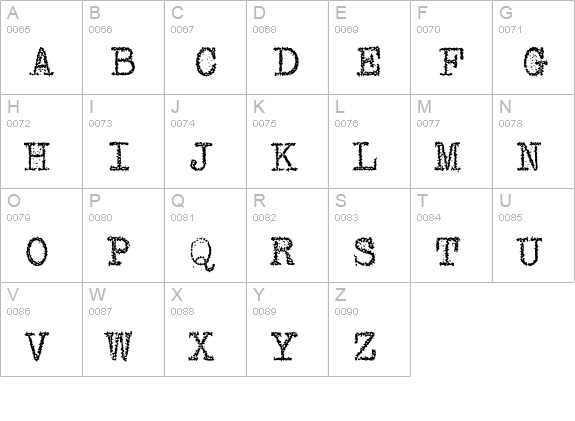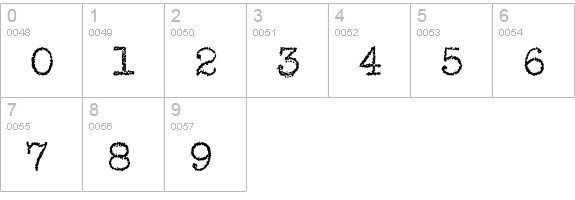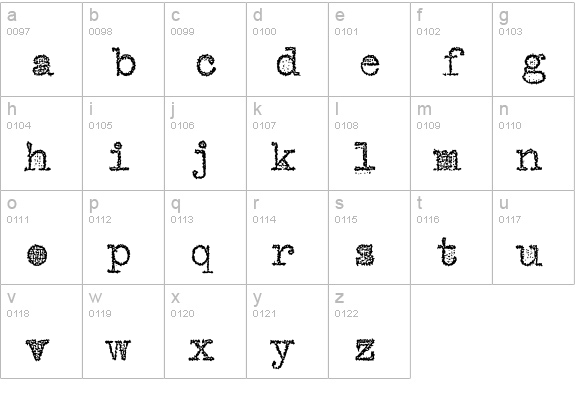
VTypewriter-RoyalDeLuxe Font Details
Introducing VTypewriter-RoyalDeLuxe, a mesmerizing font that takes you on a journey through time with its vintage charm and classic allure. This font captures the essence of typewriter lettering, exuding an air of nostalgia and authenticity. With its meticulously crafted design, VTypewriter-RoyalDeLuxe brings back the elegance and sophistication of old-fashioned typewriters, while adding a contemporary twist. Its distinctive characters are beautifully imperfect, showcasing the subtle nuances and imperfections of typewritten text. The versatility of VTypewriter-RoyalDeLuxe is truly remarkable. Whether you're creating invitations, posters, logos, or branding materials, this font effortlessly elevates your designs to new heights. Its timeless appeal complements a wide range of creative projects, capturing attention and leaving a lasting impression. But what makes VTypewriter-RoyalDeLuxe even more remarkable is that it is freely available to download at FontsMarket.com. This means that you can enhance your designs with this exceptional font without any cost or restrictions. It's a true treasure trove for designers and typographic enthusiasts alike. So, why wait? Embrace the elegance of a bygone era and add a touch of vintage sophistication to your designs with VTypewriter-RoyalDeLuxe. Download it for free at FontsMarket.com and unlock endless possibilities for your creative endeavors.